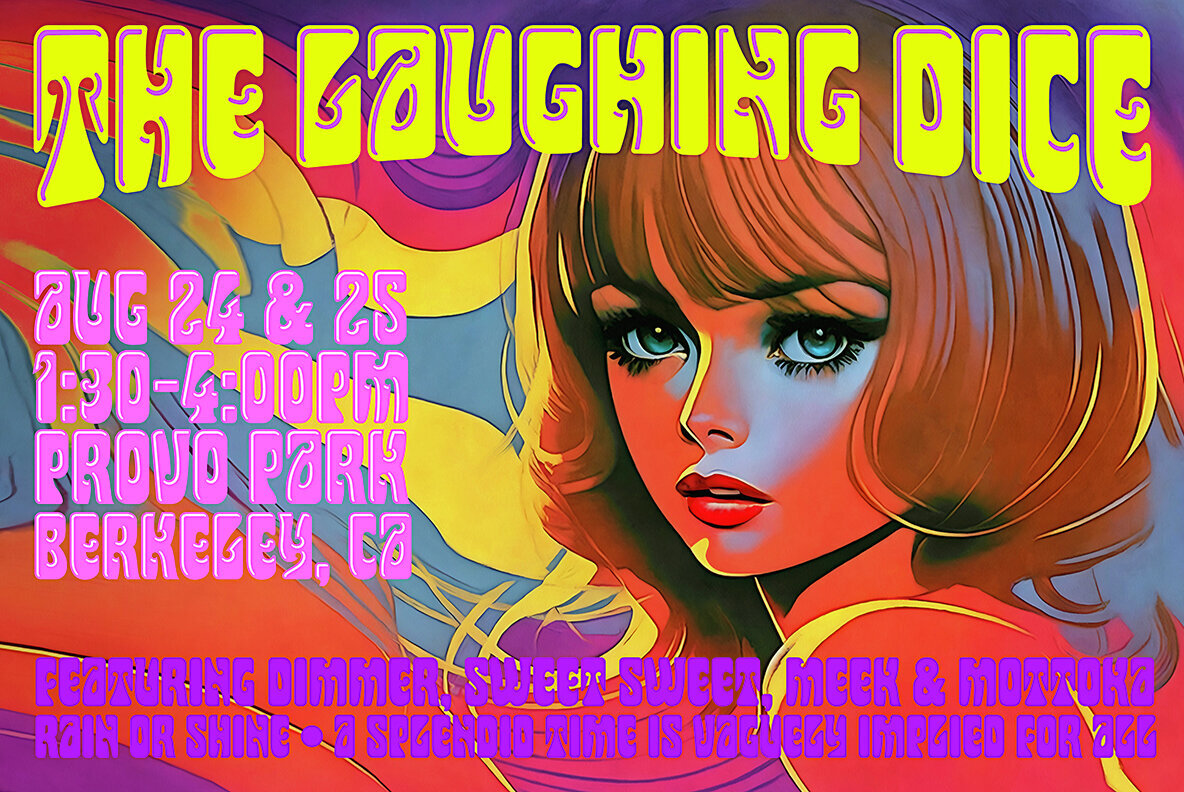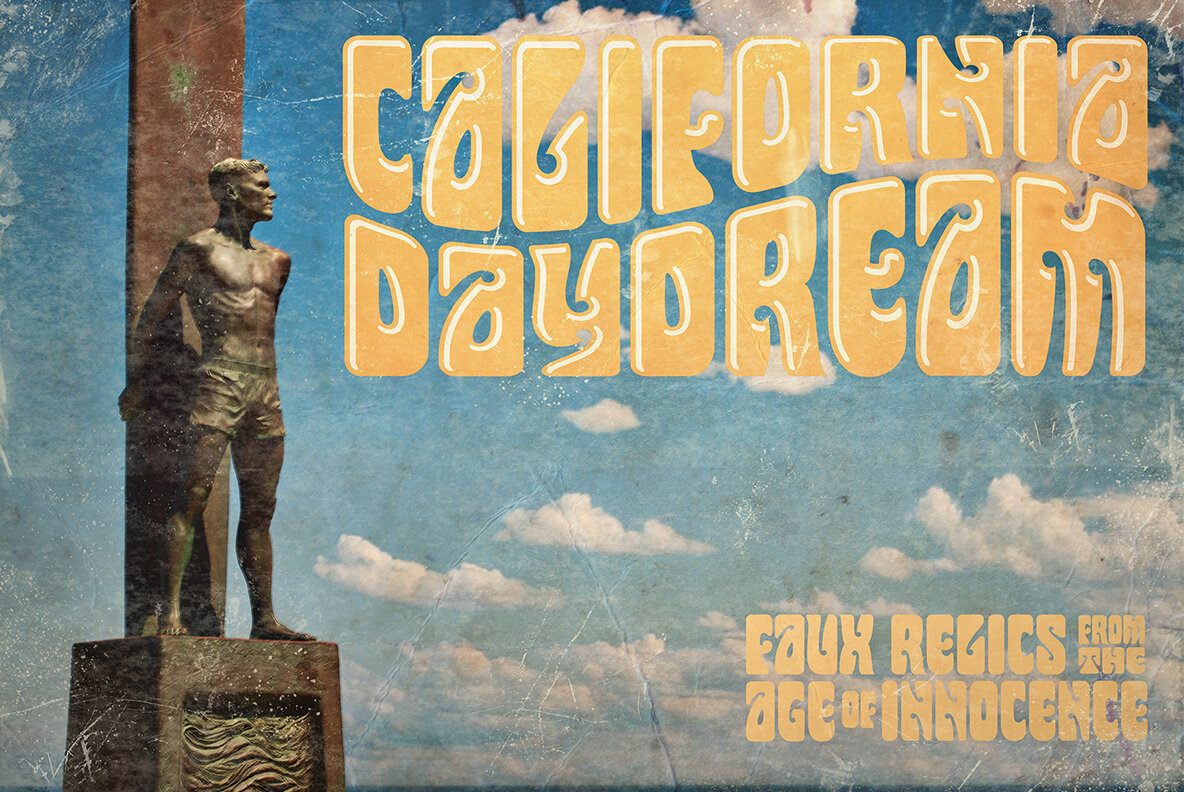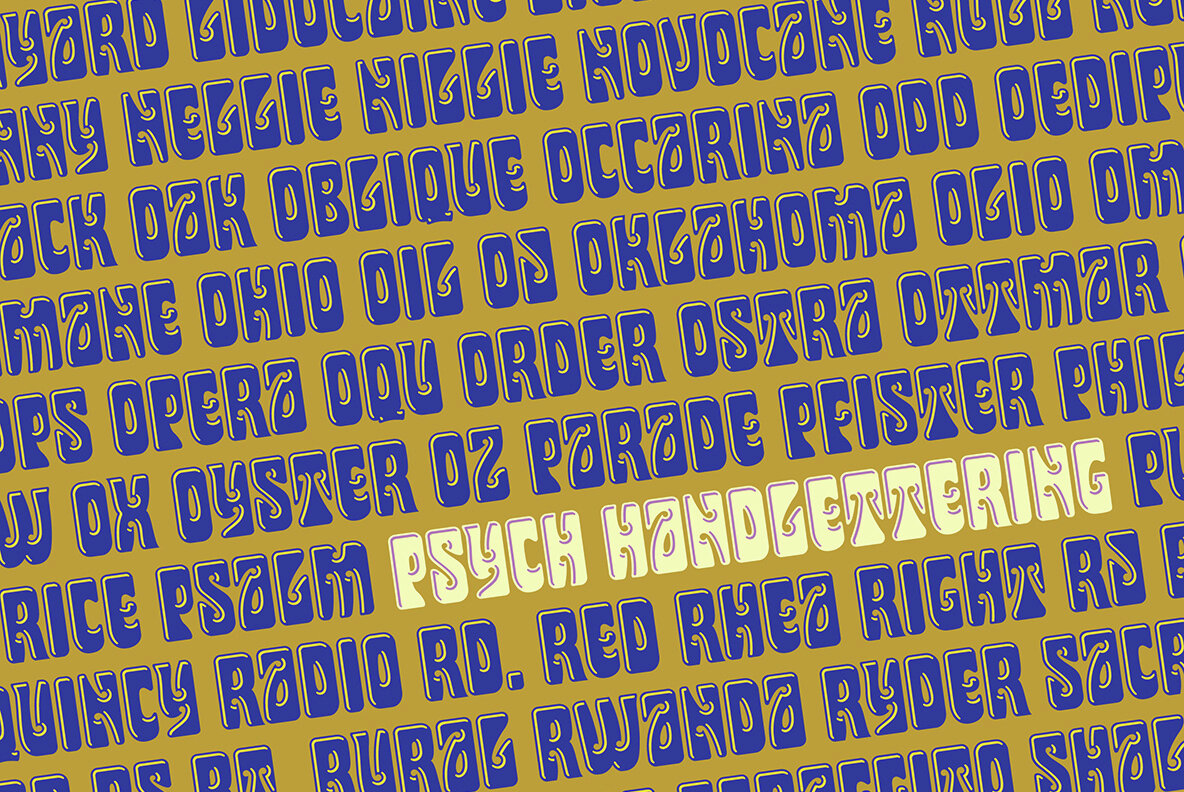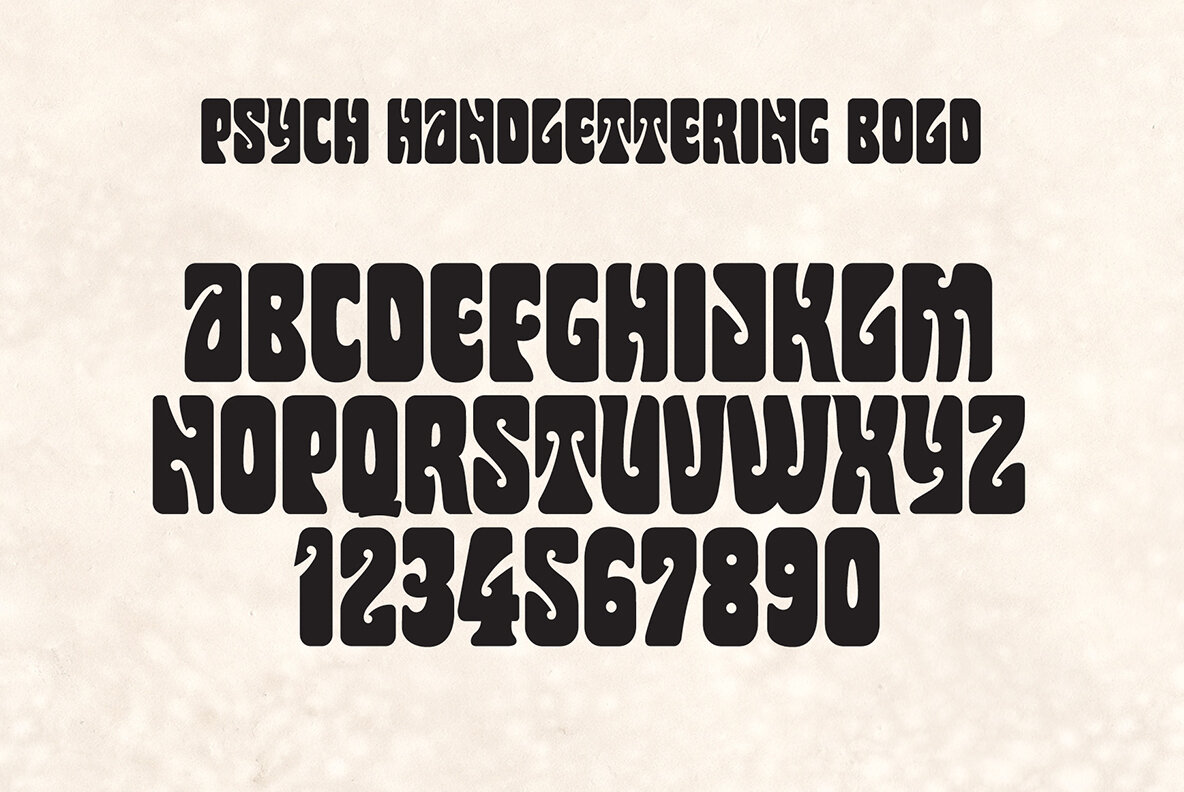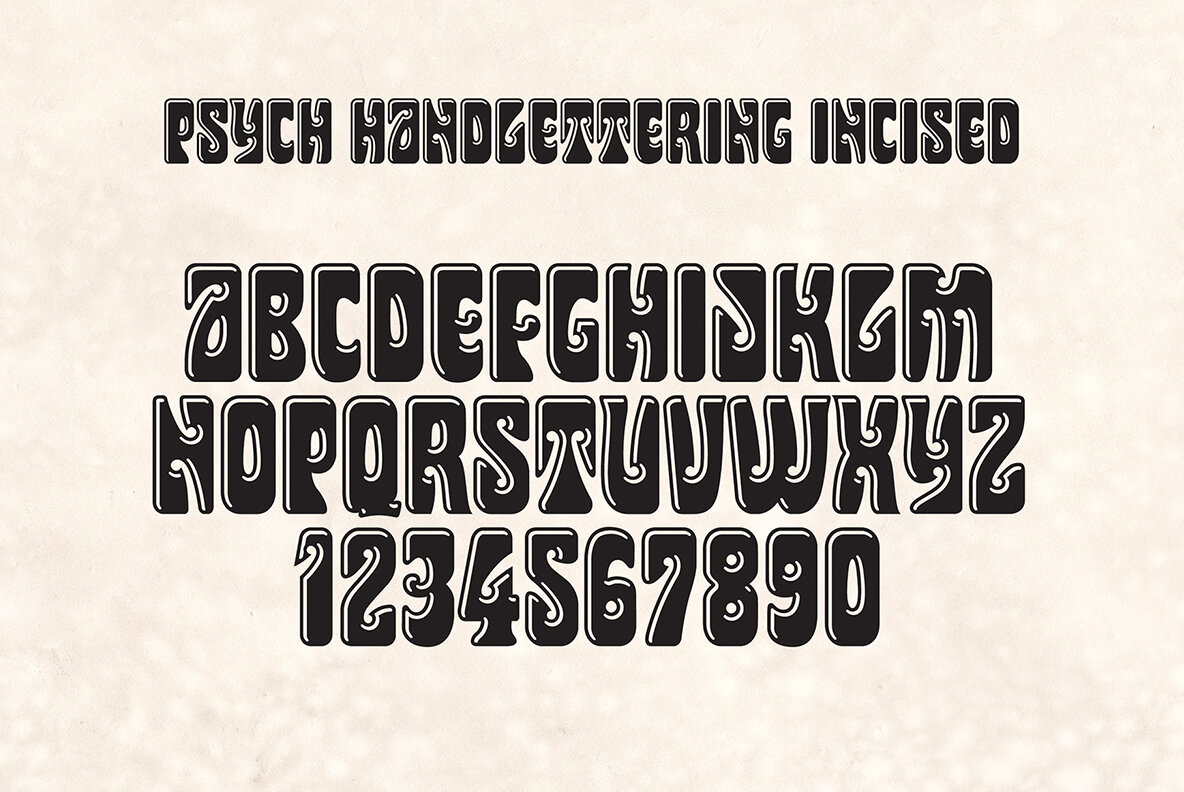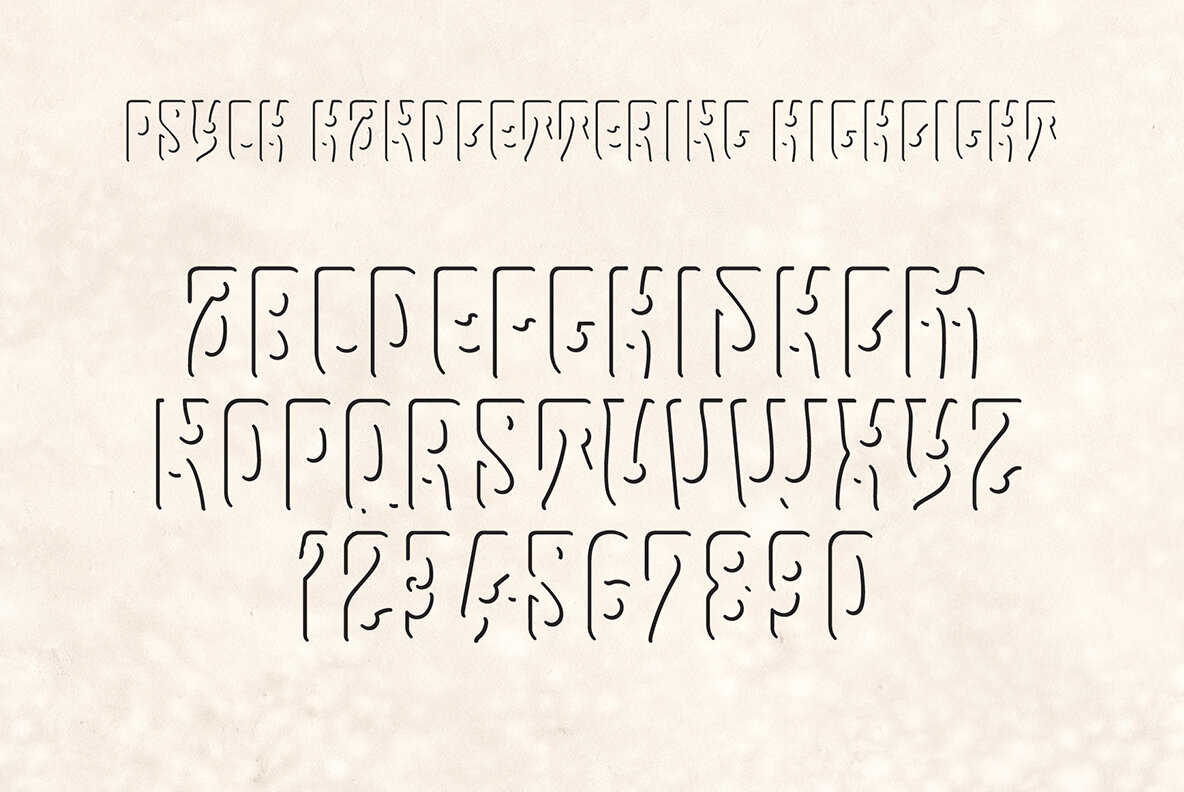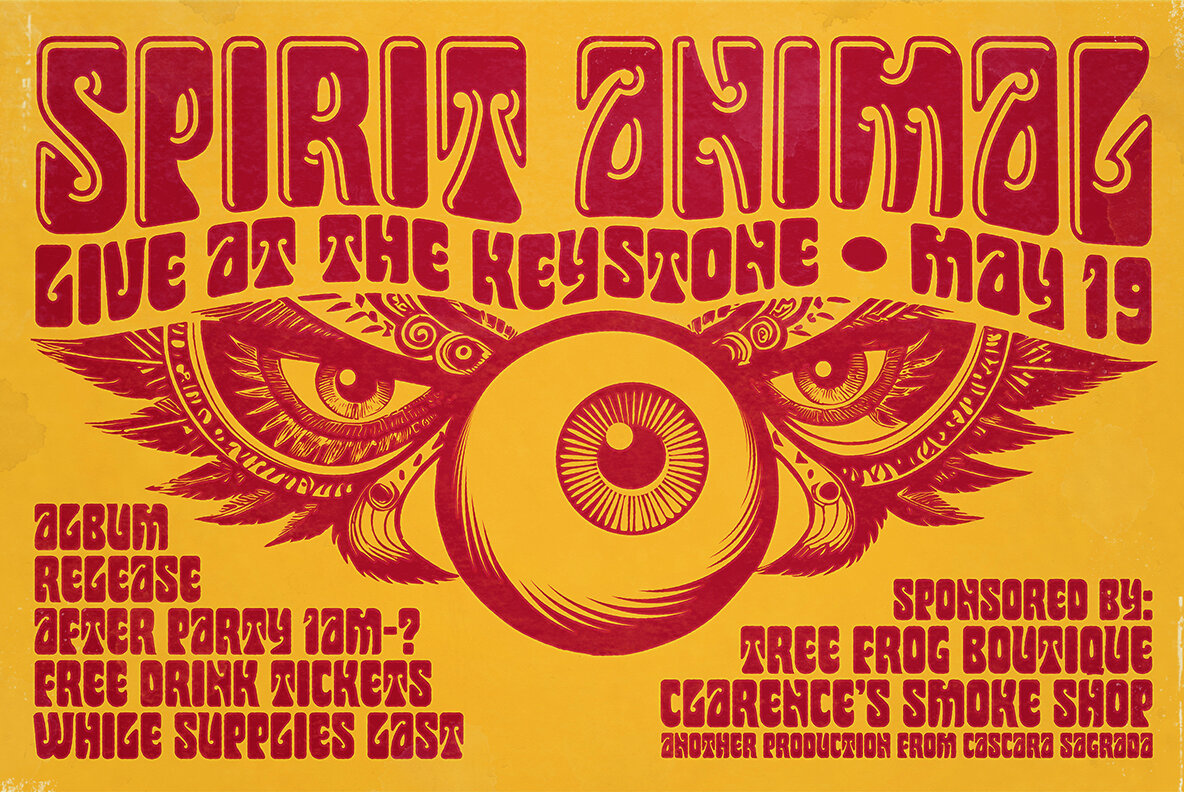
Psych Handlettering Font
Here's a font family distilled from the lettering styles of a thousand vintage psychedelic rock albums and posters from the swingin' sixties. All of the grooviness, but perhaps twice the legibility of some of the more "far out" examples from the genre. This 3-font collection works together seamlessly to allow you to layer the font variations, assigning one color to the body of the letter, and — with a simple text copy & paste — a second color to the highlight font on the top layer. With its extensive character set and multilingual glyphs, Psych Handlettering lets you say "Trippy, Man." in many languages.